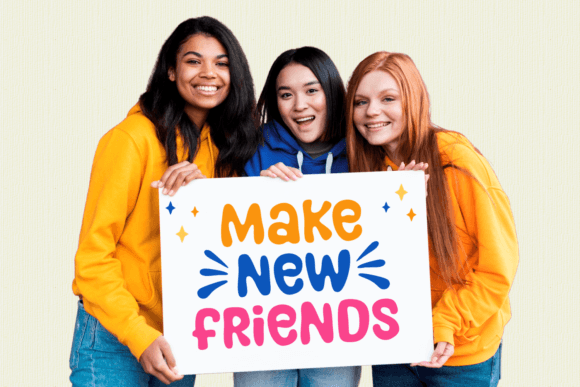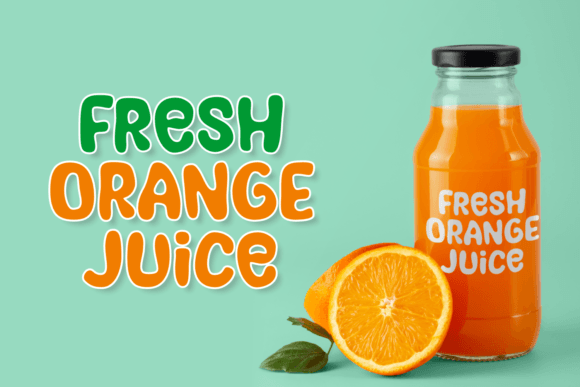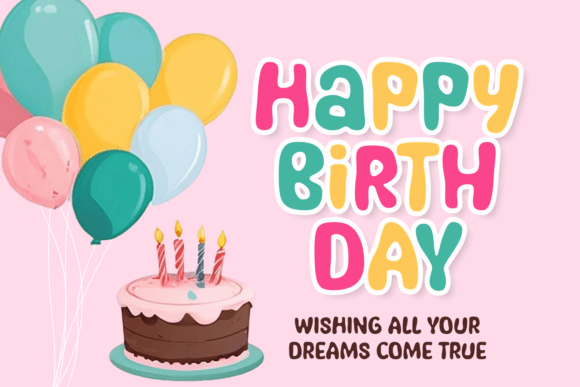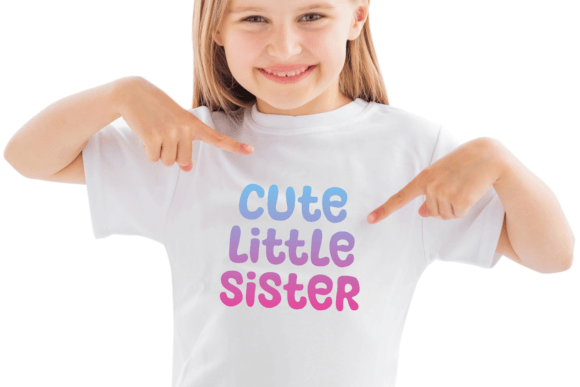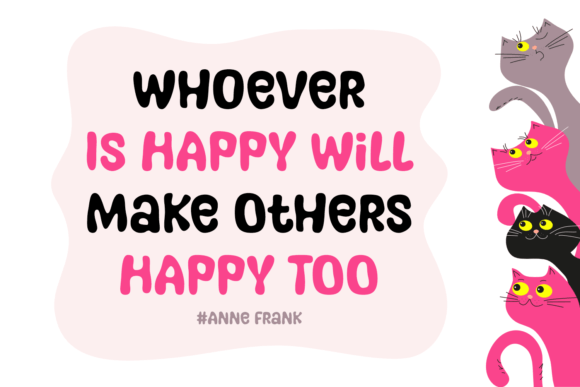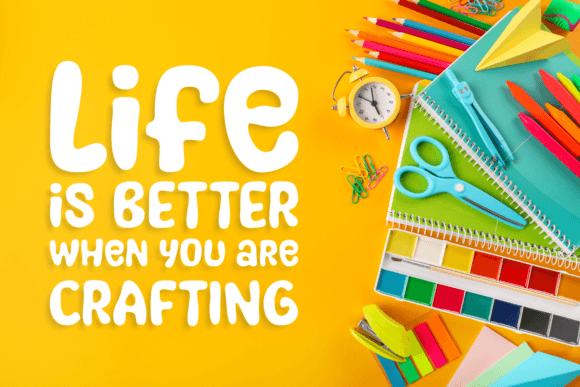
Discover the Power of Flexy Peace Font
Have you ever stared at a blank page, searching for the perfect font to bring your design to life? The cursor blinks, and suddenly, a burst of creativity strikes – you envision a charming, hand-drawn typeface that exudes joy and playfulness. That’s exactly what the Flexy Peace Font is all about: infusing a sense of whimsy and charisma into your designs.
As a versatile and appealing font, Flexy Peace is a game-changer for designers, offering a candid touch of craftsmanship to apparel designs, inspirational quotes, or spirited social media posts. With its dynamic curves and rounded characters, this font is sure to captivate your audience and leave a lasting impression. Whether you’re a seasoned designer or a creative enthusiast, Flexy Peace Font is an essential tool to elevate your branding, packaging, and website enhancement.
Key Features of Flexy Peace Font
- Unique Characteristics: Flexy Peace Font features a unique blend of modern and minimalist design elements, making it perfect for creating a sense of calm and serenity in digital and print materials.
Flexy Peace Font Review
Overall, I’d say the Flexy Peace Font has some great qualities that make it a solid addition to any designer’s toolkit. ✨ The font’s unique blend of rounded edges and subtle curves creates a soothing and calming atmosphere, perfect for projects that require a peaceful vibe. The font’s versatility also shines through, as it works well in both digital and print formats.
One of the standout features of Flexy Peace Font is its extensive character set, which includes a wide range of punctuation and special characters. ✨ This makes it a great choice for designers who need to convey complex information in a clear and concise manner. Additionally, the font’s OpenType features allow for some interesting ligature combinations that add a touch of personality to text.
- ⚠️ The font’s rounded edges can sometimes make it difficult to read at small font sizes.
- ⚠️ The font’s limited contrast between light and dark areas can make it challenging to use in high-contrast designs.
Overall, I’d give the Flexy Peace Font 4 out of 5 stars. While it has some limitations, its unique design and versatility make it a valuable addition to any designer’s toolkit. With a little creativity and experimentation, designers can unlock the full potential of this beautiful font.
The Flexy Peace Font is ideal for:
- Creating peaceful and calming designs.
- Designing inspirational quotes and phrases.
- Adding a touch of elegance to your documents and presentations.
For optimal results, use the Flexy Peace Font in conjunction with calming colors and simple designs. Experiment with different font sizes and styles to create a unique look.